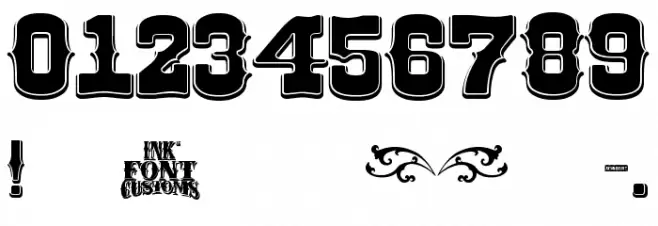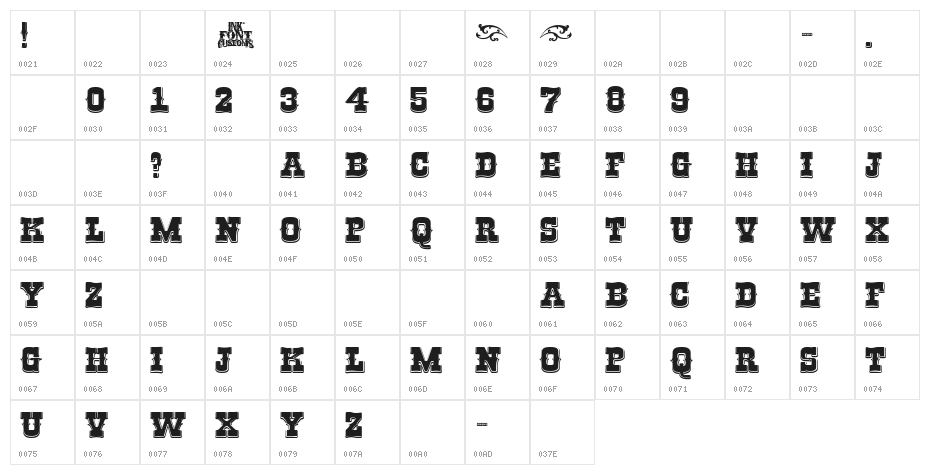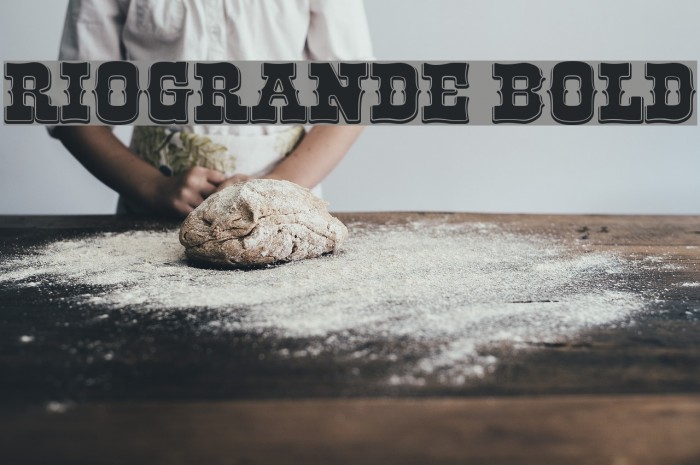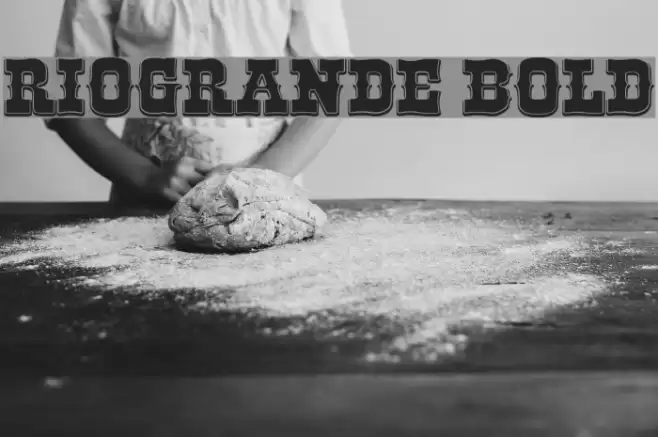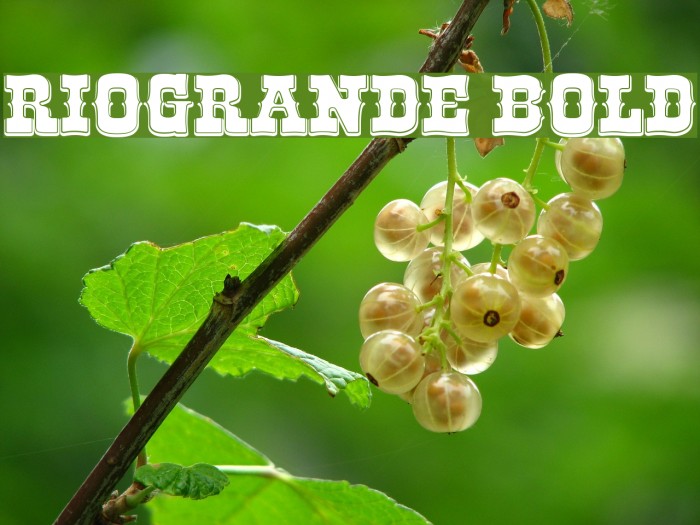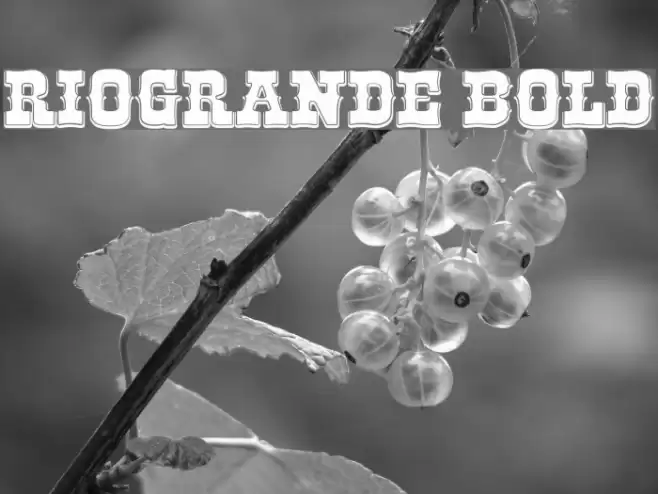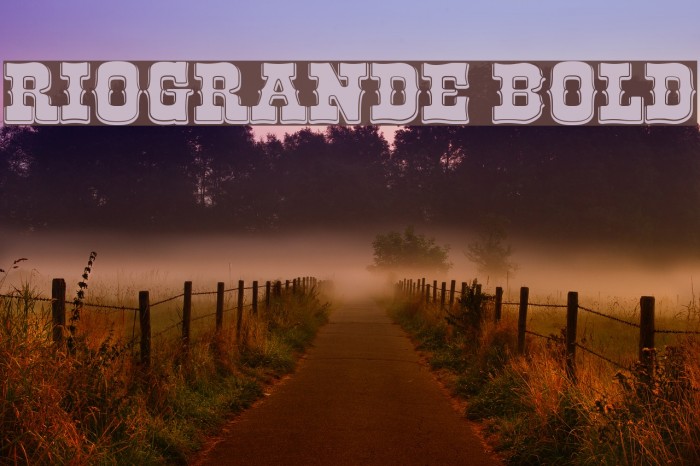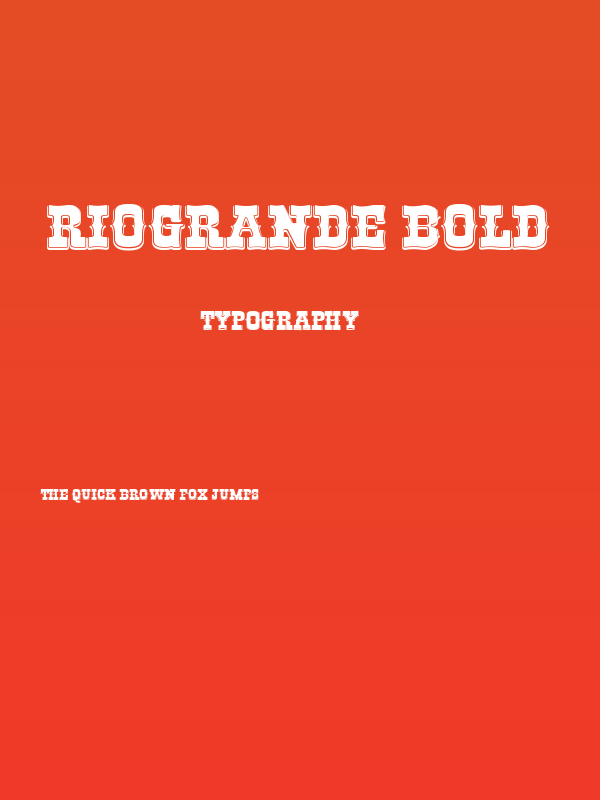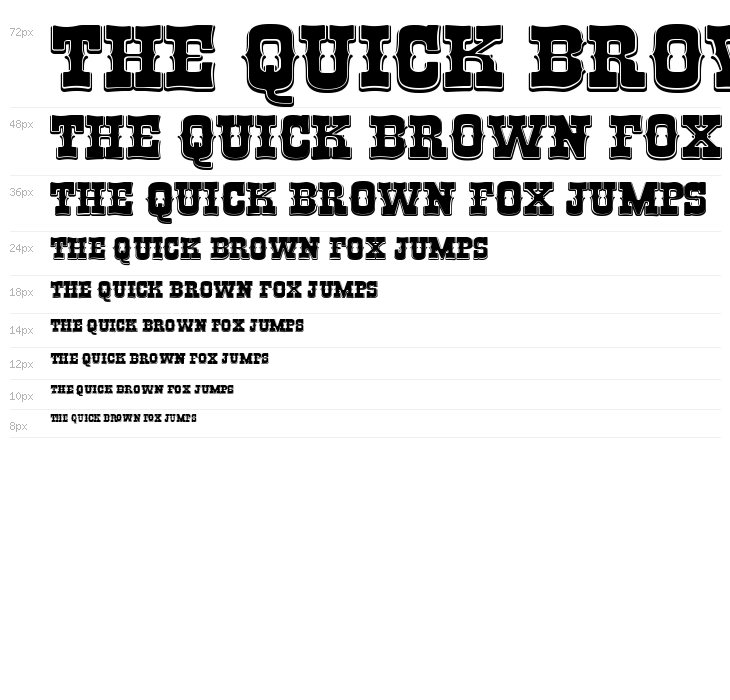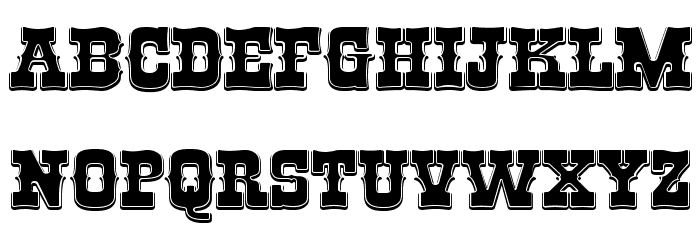
RioGrande Bold Font
RioGrande Bold Description
This bold, decorative font features a strong, impactful presence with its thick, blocky letters. The design incorporates a Western-inspired aesthetic, characterized by its slab serif style and intricate detailing within each character. The uppercase letters are particularly striking, with a bold outline that enhances their visibility and adds a sense of depth. The numbers and special characters maintain this robust style, ensuring consistency throughout the font. Its unique flair makes it suitable for projects that require a touch of vintage or rustic charm.